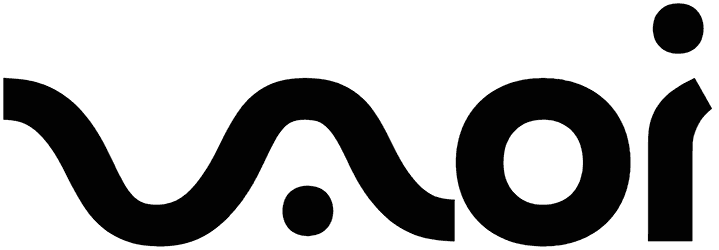
Vaoi Font
Giving a bold visual to your words and keeping them minimal at the same time is possible with a Y2K font like the present item. Vaoi font, with its smooth and thick letters, will make your design strong and cool. Test this poster font for your techno party flyer and create an interesting and dynamic layout even without uppercase letters.